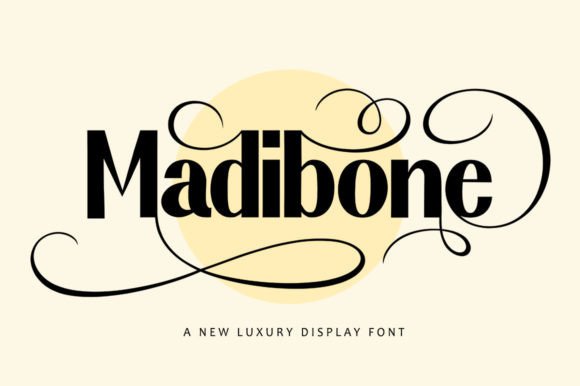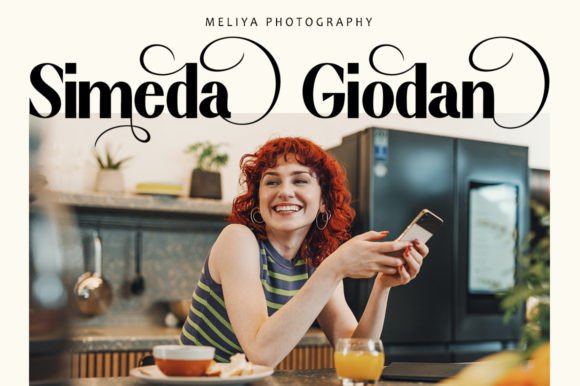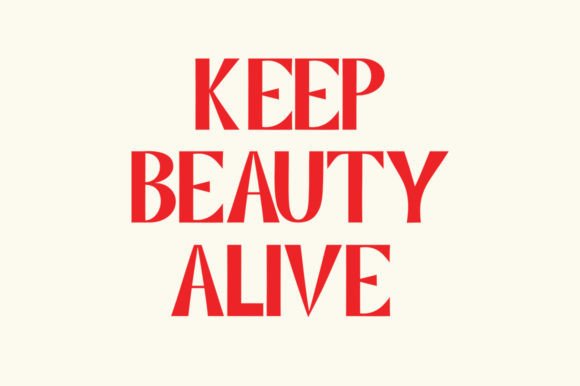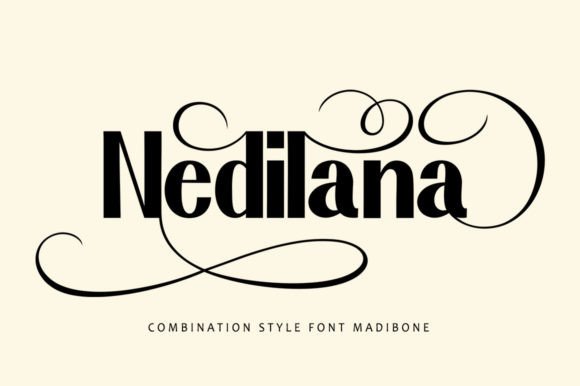
Madibone Font: Elegant Serif Typography for Modern Logo Design
About the Madibone Font
Make a bold statement with Madibone Font, a powerful and memorable font. Madibone is a modern and stylish elegant serif font that will give your projects a touch of luxury and style. It’s perfect for logotypes, branding, monograms and wedding invitations, blog headlines, and more. This font is PUA encoded which means you can access all glyphs and swashes effortlessly!
Madibone’s elegant serif forms shine in headlines, logos, and short-form text applications such as invitations or short marketing copy. Its refined character lends itself well to luxury branding and projects requiring a sophisticated aesthetic. Avoid using it for large blocks of body text or UI elements where readability is paramount; its delicate details can hinder legibility at smaller sizes.
Pairing Madibone effectively depends on the desired mood. For a classic feel, consider a clean sans-serif like Lato or Open Sans. To amplify its luxurious feel, a thin, elegant script like Great Vibes can create a harmonious balance. For a more modern contrast, a geometric sans-serif such as Montserrat can provide a striking juxtaposition.
Madibone projects an overall air of sophisticated elegance. It’s ideal for brands aiming for a premium, timeless image. Its refined strokes and subtle details ensure that the design stands out without being overly fussy.